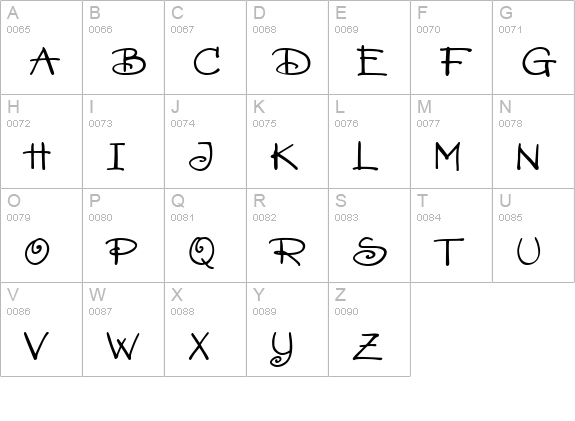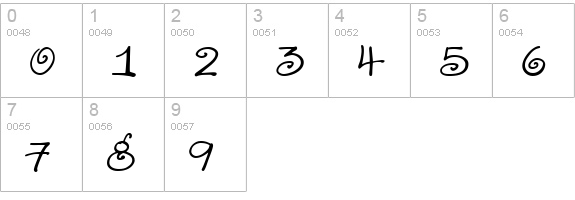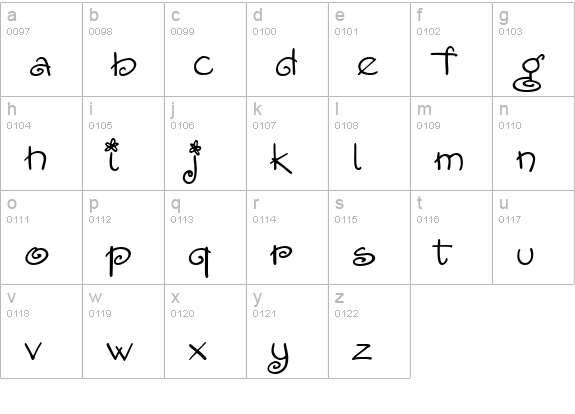
AmoreATT Font Details
AmoreATT font is a stunning and elegant typeface that exudes sophistication and charm. Its delicate curves and stylish design make it perfect for adding a touch of romance to any project. The flowing strokes and graceful letterforms of AmoreATT font create a sense of timeless beauty that is sure to captivate and inspire. What's even better is that AmoreATT font is available for free download at FontsMarket.com. This means you can easily access this exquisite font and incorporate its graceful flair into your designs without any cost. Whether you're working on wedding invitations, love letters, or any other project that requires a touch of romance, AmoreATT font is the perfect choice. Download it today and let its beauty enhance your creations.